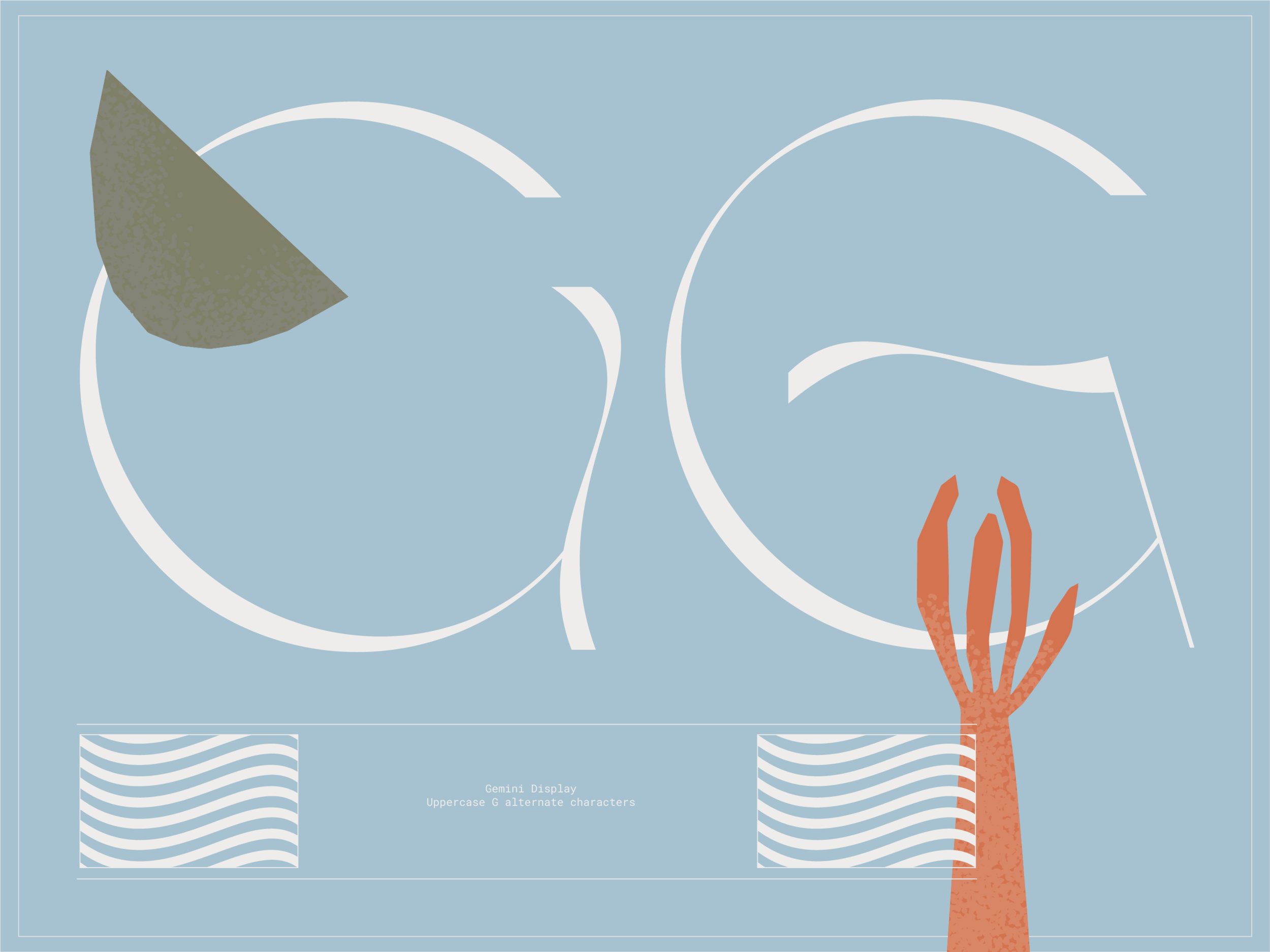
Gemini - Typeface Family
Gemini is a set of twin uppercase typefaces that are vertical, ethereal, and elegant. Gemini Regular is the standard version of Gemini that features more stroke variation in each letterform, making it best suited for large text and use cases where maximum legibility is not a concern. Gemini Legacy features a minimal amount of stroke weight variation, making it best for large-medium sized text, or use cases where a bolder, more structured aesthetic is desired.